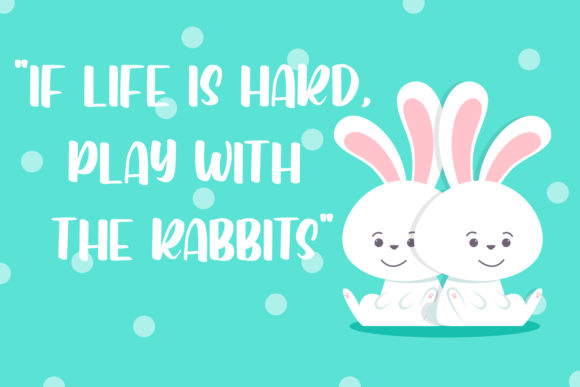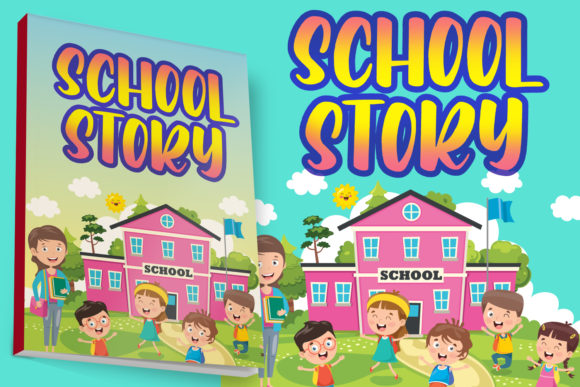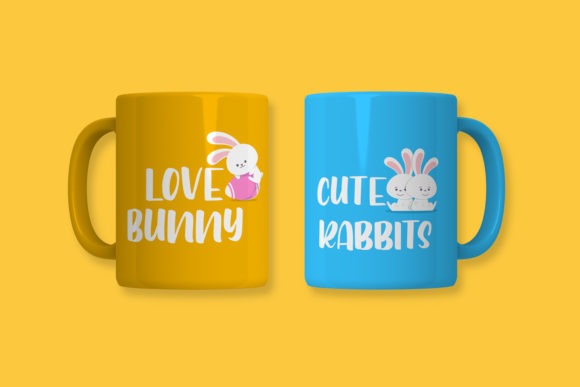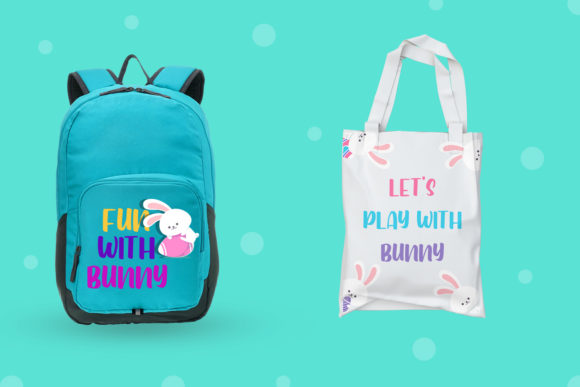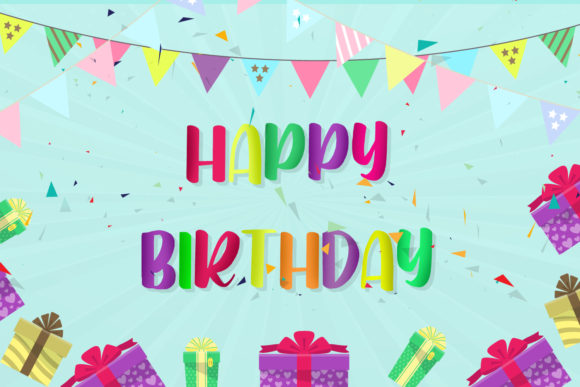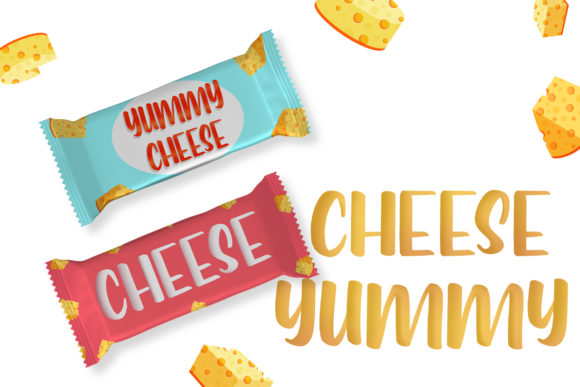
The Joy of Bunny Baby Font: Adding a Touch of Whimsy to Your Designs
You know that feeling when you’re brainstorming a new design project and suddenly a spark of creativity hits you? The ideas start flowing, and you can’t wait to bring your vision to life. It’s moments like these that make being a designer truly magical.
That’s why we’re excited to introduce you to the adorable Bunny Baby Font, a cute and quirky display font that’s sure to add a joyful touch to your designs. This charming font is perfect for adding a playful twist to your branding, social media graphics, or even children’s book illustrations.
Whether you’re a seasoned designer or just starting out, the Bunny Baby Font is a valuable addition to your creative toolkit. Its versatility and whimsical charm make it an instant favorite among designers looking to add a little extra magic to their work.
Bunny Baby Font Key Features
- Font Family: Bunny Baby Font
- Unique Characteristics: Hand-drawn, playful, and whimsical design with a mix of bold and delicate lines, ideal for children’s products, nursery decor, and other creative projects.
Bunny Baby Font Review
As a designer, I was excited to dive into the Bunny Baby Font and see what it had to offer. Here’s my honest review.
- The font’s playful and whimsical vibe is perfect for children’s books, nursery decor, and other kid-friendly projects.
- The Bunny Baby Font has a nice balance of round and pointed edges, giving it a soft yet quirky feel.
- The font is highly customizable, with a wide range of weights and styles to choose from.
- The font may not be suitable for formal or professional projects, as it can come across as too childlike or immature.
- The font’s spacing can be a bit inconsistent, especially at larger font sizes.
- There may be limited support for certain languages or character sets.
The Bunny Baby Font is a delightful addition to any designer’s toolkit. While it may have some limitations, its unique charm and versatility make it a great choice for the right projects. Overall, I’d give it 4 out of 5 stars.
Tips for Getting the Most Out of Bunny Baby Font
For the best results, use Bunny Baby Font in conjunction with a playful or whimsical design aesthetic. You can also experiment with different font sizes, colors, and combinations to create a unique look.
Bunny Baby Font is perfect for:
- Children’s book covers and illustrations.
- Toy packaging and branding.
Alternatives to “Bunny Baby Font” for Designers
Pacifico is a beautiful, elegant script font that can be used for various design projects such as invitations, greeting cards, and baby-related designs. It’s a great alternative to Bunny Baby Font for designers looking for a more sophisticated and refined look.
Comparison: Pacifico has a more polished and sophisticated look compared to Bunny Baby Font, which is more playful and cute. Pacifico is ideal for designs that require a touch of elegance and sophistication.
Great Vibes is a fun and playful font that can be used for various design projects such as posters, social media graphics, and baby-related designs. It’s a great alternative to Bunny Baby Font for designers looking for a more energetic and lively look.
Comparison: Great Vibes has a more energetic and lively look compared to Bunny Baby Font, which is more cute and playful. Great Vibes is ideal for designs that require a lot of energy and vibrancy.
Lobster is a beautiful, cursive font that can be used for various design projects such as invitations, greeting cards, and baby-related designs. It’s a great alternative to Bunny Baby Font for designers looking for a more elegant and refined look.
Comparison: Lobster has a more elegant and refined look compared to Bunny Baby Font, which is more playful and cute. Lobster is ideal for designs that require a touch of sophistication and elegance.
Dancing Script is a beautiful, elegant script font that can be used for various design projects such as invitations, greeting cards, and baby-related designs. It’s a great alternative to Bunny Baby Font